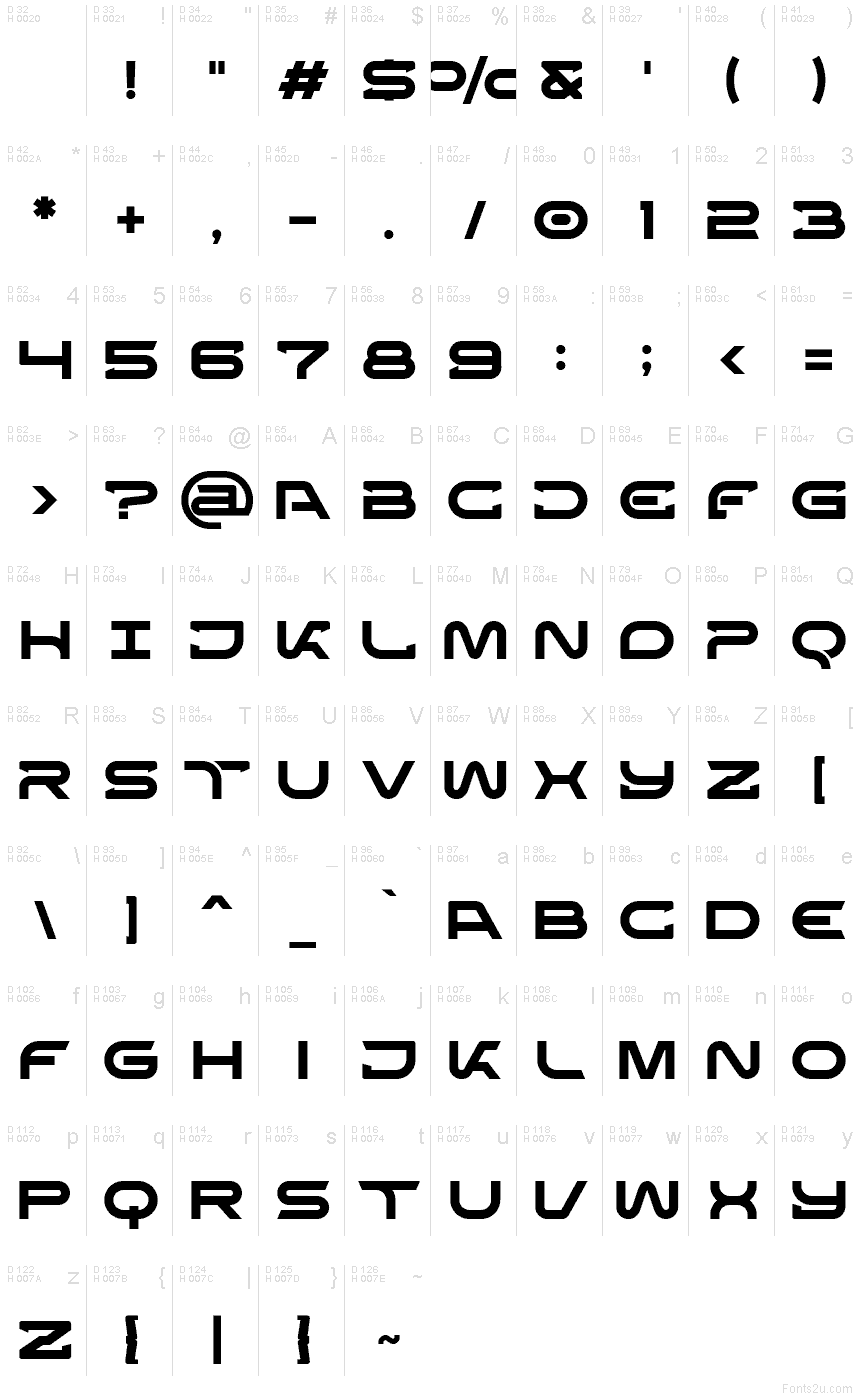
Dena Regular
Dena font by Linecreative is a free futuristic typeface. Built around soft, continuous strokes with surgically precise cutaways, it blends rounded geometry with sharp, chiseled notches. The letters feel machined—thick, even strokes glide into smooth corners while strategic slices vent the forms, preventing bulk and adding a sleek, tech-forward rhythm.
This free font shines on sci‑fi posters, tech branding, esports logos, UI headers, gadget packaging, and automotive or drone decals. Its generous curves and tight joins read instantly at large sizes, lending a glossy, engineered presence. Using Dena, pair it with a neutral grotesque for body copy, and track headlines slightly open to amplify the airflow effect.